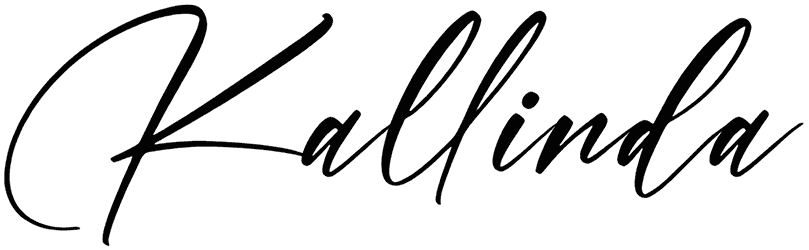
Kallinda Font
Kallinda is a cursive handwritten font that is able to fill the gap between your content and the audience. This magical script font can level up your creative ideas the same like social media posts, stickers, blog posts, digital banners, or applications by adding a feeling of vitality, precision, professionalism, or dynamism to them.